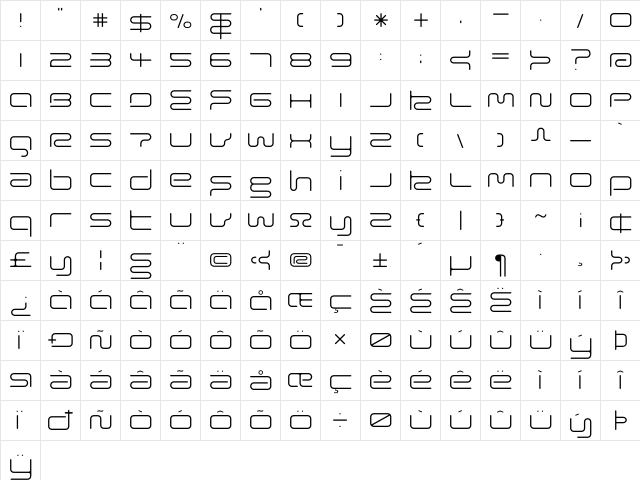
Euphoric Thin Font Preview
Euphoric Thin
Euphoric Thin Font Details
| Style | Thin |
Design Context for Euphoric Typeface
Euphoric takes a measured approach to typography — its balanced proportions and neutral character make it a reliable workhorse for both digital and print work. The delicate stroke weight brings airiness and refinement to layouts.